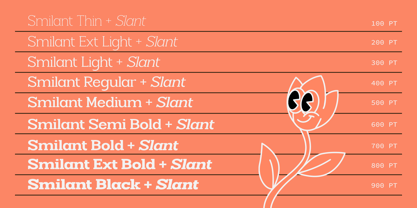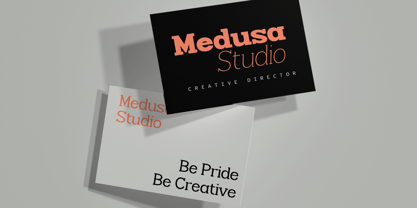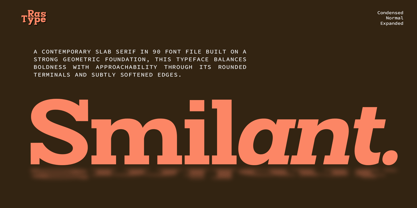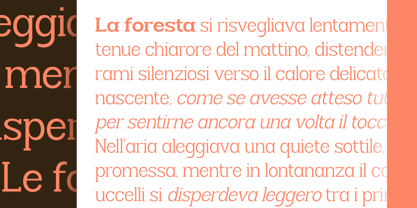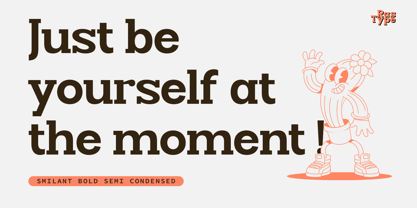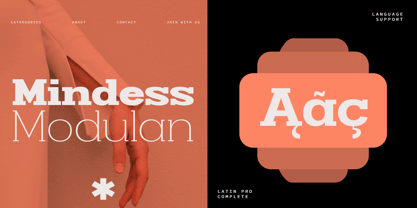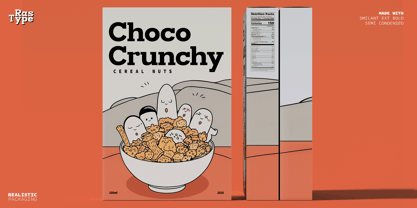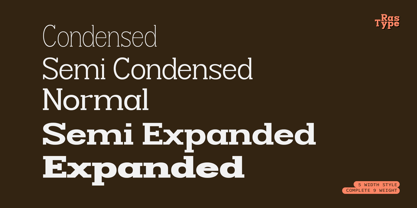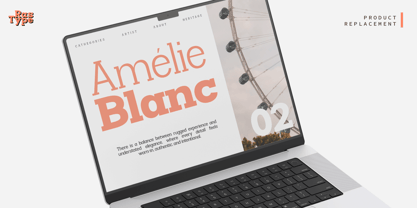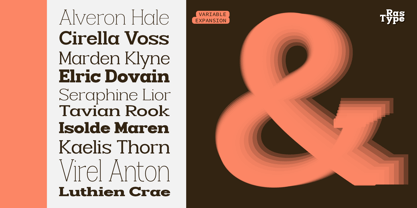
Smilant
by Rastype Studio
The Smilant Font Family was designed by Muhammad Taufik and published by Rastype Studio. Smilant contains 91 styles and family package options. More about this family
This typeface is a contemporary slab serif built on a strong geometric foundation, combining bold structure with a warm, approachable feel. Its prominent, blocky serifs provide stability and confidence, while the rounded terminals and softened edges introduce a friendly and modern touch. The design strikes a balance between robustness and readability, making it ideal for impactful headlines, branding, and editorial layouts. With its clean proportions and subtle softness, it delivers both authority and charm in a versatile typographic voice.
Designers: Muhammad Taufik
Foundry: Rastype Studio